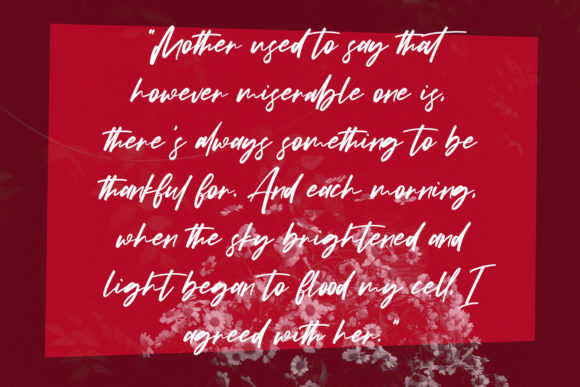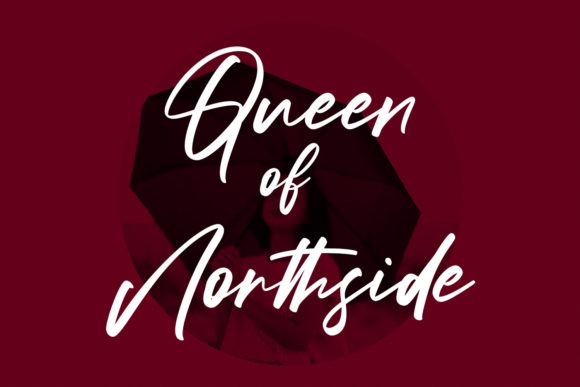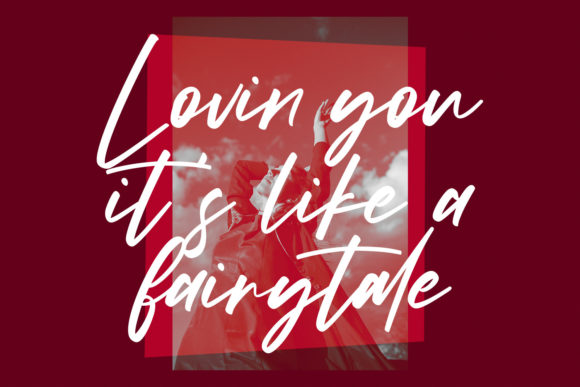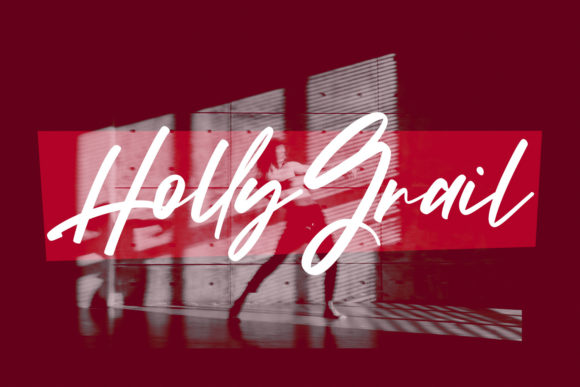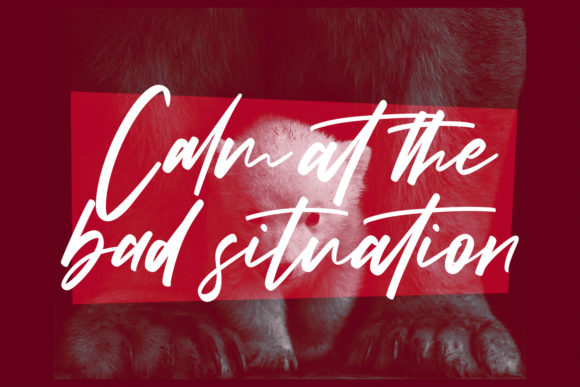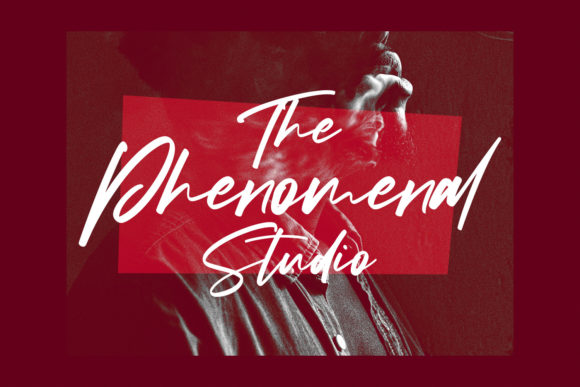
Hartwick Script Font: Elevate Your Designs with Confidence and Style
In the world of typography, a well-chosen font can make all the difference in the success of a design project. For designers and crafters looking to add a touch of elegance and sophistication to their work, the Hartwick Script Font is an excellent choice. This expressive signature script font is designed to convey strength, confidence, and dynamism, making it perfect for a wide range of design applications.
The Hartwick Script Font: A Strong and Confident Choice
Hartwick Script is an expressive signature script font that reads as strong, confident, and dynamic. Its unique lettering style is characterized by flowing lines, elegant swashes, and a sense of movement, which gives it a distinctive and stylish feel. Whether you’re working on a branding project, a wedding invitation, or a packaging design, the Hartwick Script Font is sure to add tons of stylish character to your work.
Key Features of the Hartwick Script Font
- Expressive Signature Script: The Hartwick Script Font features a unique and expressive signature script style that is perfect for adding a personal touch to your designs.
- Strong and Confident: The font’s bold and dynamic lettering style conveys strength and confidence, making it ideal for designs that require a sense of authority and sophistication.
- Elegant Swashes: The font features elegant swashes and flourishes that add a touch of elegance and refinement to your designs.
- Dynamic and Stylish: The Hartwick Script Font has a dynamic and stylish feel that makes it perfect for designs that require a sense of movement and energy.
Design Applications for the Hartwick Script Font
The Hartwick Script Font is versatile and can be used in a wide range of design applications, including:
- Branding and Logo Design: The font’s strong and confident style makes it perfect for branding and logo design projects that require a sense of authority and sophistication.
- Wedding Invitations and Stationery: The font’s elegant and refined style makes it ideal for wedding invitations, stationery, and other paper crafts.
- Packaging Design: The font’s dynamic and stylish feel makes it perfect for packaging design projects that require a sense of energy and movement.
- Advertising and Marketing: The font’s bold and confident style makes it ideal for advertising and marketing projects that require a sense of authority and sophistication.
Tips for Using the Hartwick Script Font
To get the most out of the Hartwick Script Font, here are a few tips to keep in mind:
- Use it as a Headline Font: The font’s bold and confident style makes it perfect for use as a headline font in designs.
- Pair it with a Simple Font: The font’s elegant and refined style can be paired with a simple font to create a striking contrast in designs.
- Experiment with Swashes: The font’s elegant swashes and flourishes can be used to add a touch of elegance and refinement to designs.
In conclusion, the Hartwick Script Font is an excellent choice for designers and crafters looking to add a touch of elegance and sophistication to their work. Its strong and confident style, elegant swashes, and dynamic feel make it perfect for a wide range of design applications. Whether you’re working on a branding project, a wedding invitation, or a packaging design, the Hartwick Script Font is sure to elevate your designs with confidence and style.